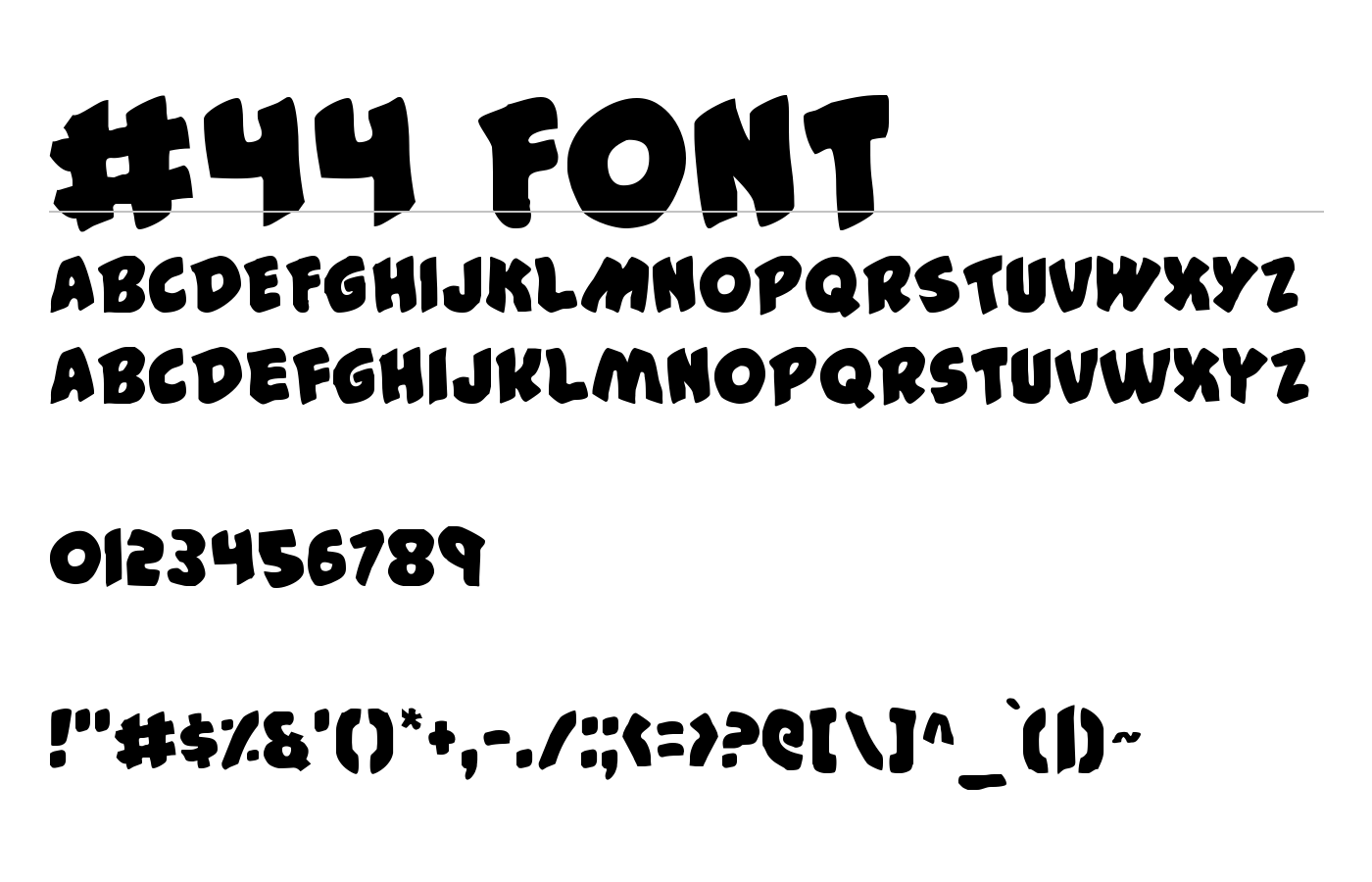
#44 Font is a bold, playful display typeface with a chunky, hand-drawn feel. Its thick strokes, irregular shapes, and casual style give it a fun and energetic personality, making it ideal for informal designs such as posters, children’s books, or eye-catching branding where a lively and approachable vibe is needed. This font works best in headlines and logos, where its distinct character can stand out and grab attention.
#44 Font
About #44 Font
| Font family | #44 Font |